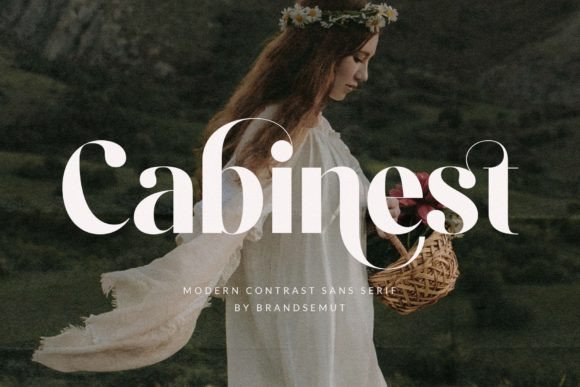
Introducing Cabinest: The Epitome of Elegance and Sophistication in Font Design
Immerse yourself in the world of design excellence with Cabinest, our captivating sans serif font that radiates elegance and modernism. meticulously crafted by the visionary designers at BrandSemut, Cabinest is not just a font; it's an experience that transforms your creative visions into captivating realities.
With its clean lines, smooth curves, and timeless appeal, Cabinest is the ultimate choice for designers seeking to elevate their projects to new heights. Whether it's a captivating logo that demands attention, a magazine layout that exudes sophistication, or a product packaging design that spells luxury, Cabinest delivers exceptional results every time.
Unleash your design potential and make a lasting impression with Cabinest - the font that speaks volumes without uttering a single word.
- Modern sans serif design: Cabinest's contemporary aesthetic brings a touch of modernity to any project.
- Clean lines and smooth curves: Every letterform in Cabinest is meticulously crafted with clean lines and smooth curves, ensuring a visually appealing and cohesive design.
- Versatile application: From headings and logos to branding, magazines, product packaging, and invitations, Cabinest's versatility knows no bounds, making it a must-have in every designer's toolkit.
- Elegance and sophistication: Cabinest's inherent elegance and sophistication add a touch of class to any project, elevating it beyond the ordinary.
- Timeless appeal: Cabinest's timeless design ensures that your creations will remain visually captivating for years to come, standing the test of time and evolving trends.